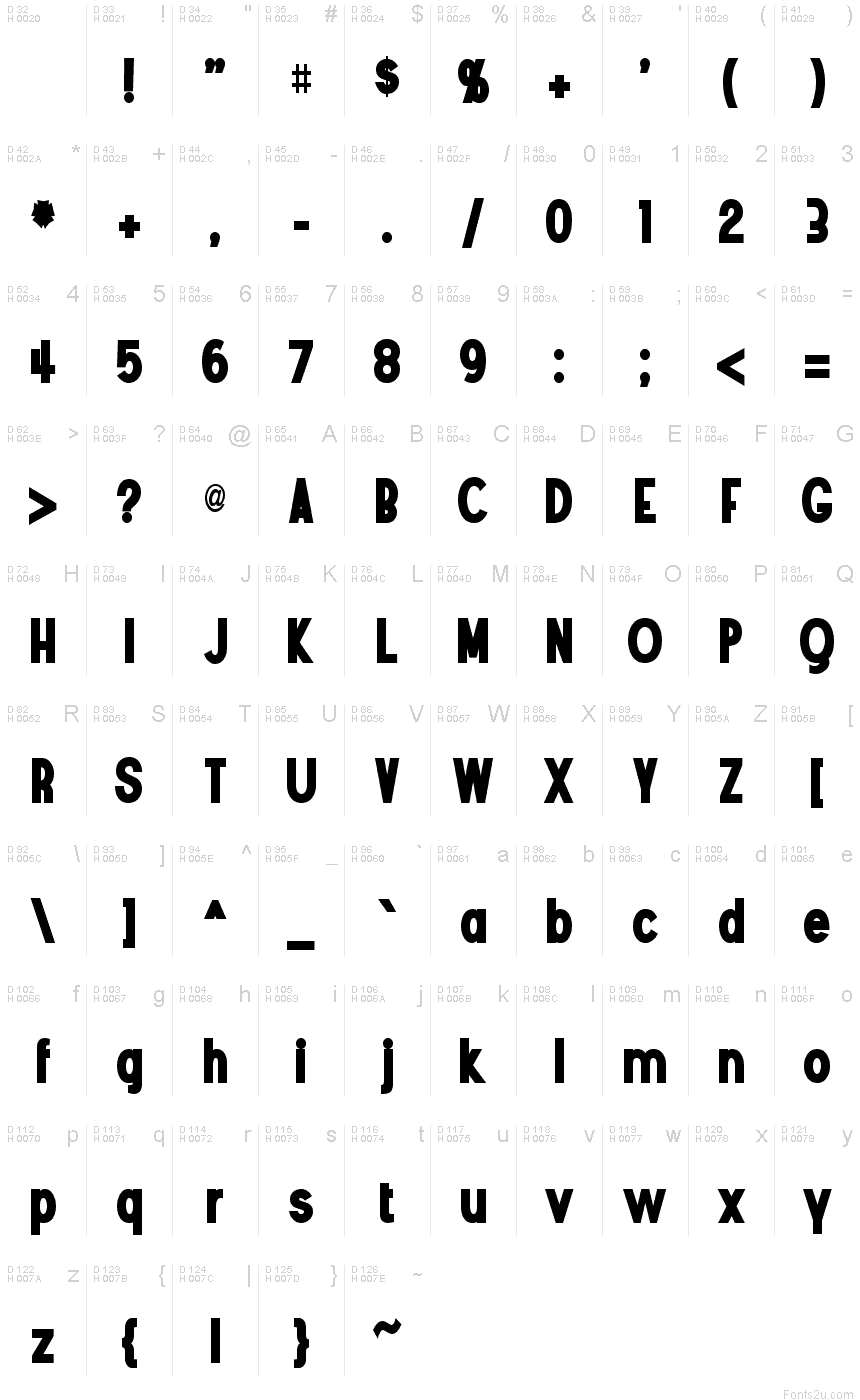
Angostura Black
Angostura Black font by Ray Larabie is a free sans serif typeface with a punchy, inky boldness that practically shouts off the page. Its chunky forms, snug spacing, and softly rounded corners give it a compressed, almost fizzy energy—like a vintage soda label blown up to headline scale. The Angostura family flavor shows in the way letters lock together into solid, confident word shapes that stay friendly rather than aggressive.
Using Angostura Black, this free font shines on bold logos, retro packaging, poster headlines, signage, t-shirt graphics, and social media graphics that need big attitude in limited space. Its dense weight makes short phrases feel like graphic blocks, great for stacking and tight layouts. Pair Angostura Black with a light, neutral grotesque for body text and let this heavy weight handle the loud, attention-grabbing moments.